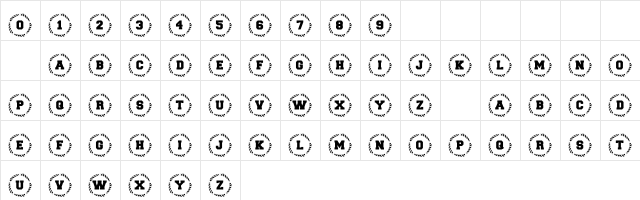
101! Patriotic Ring Regular
Design Context for 101! Patriotic Ring Typeface
101! Patriotic Ring is a composed and adaptable typeface that performs quietly and consistently across a wide range of design contexts.